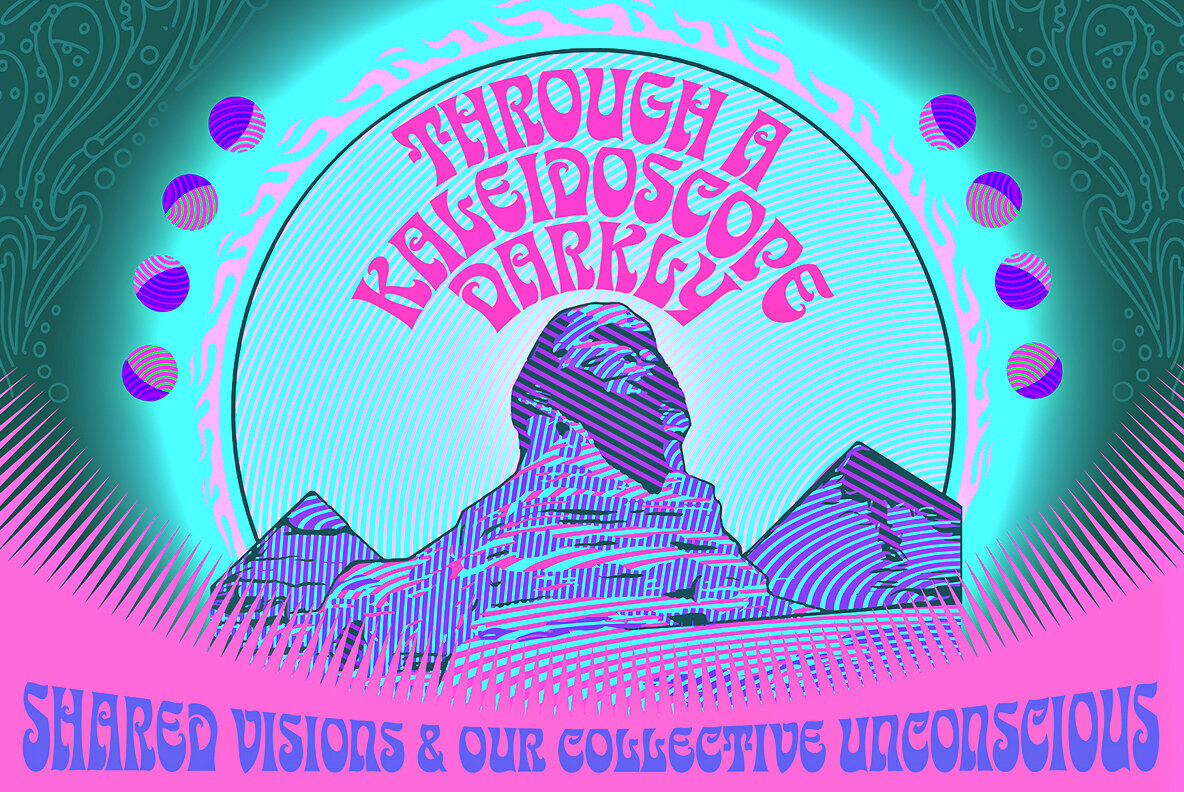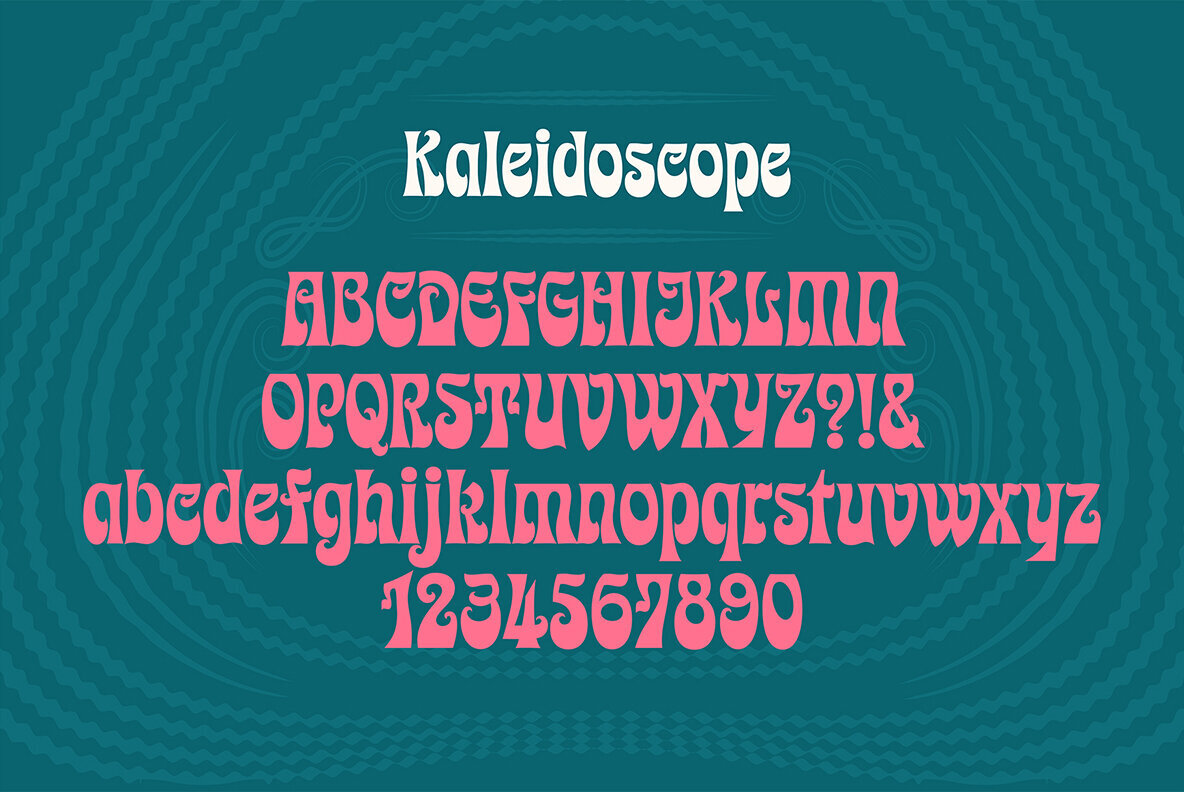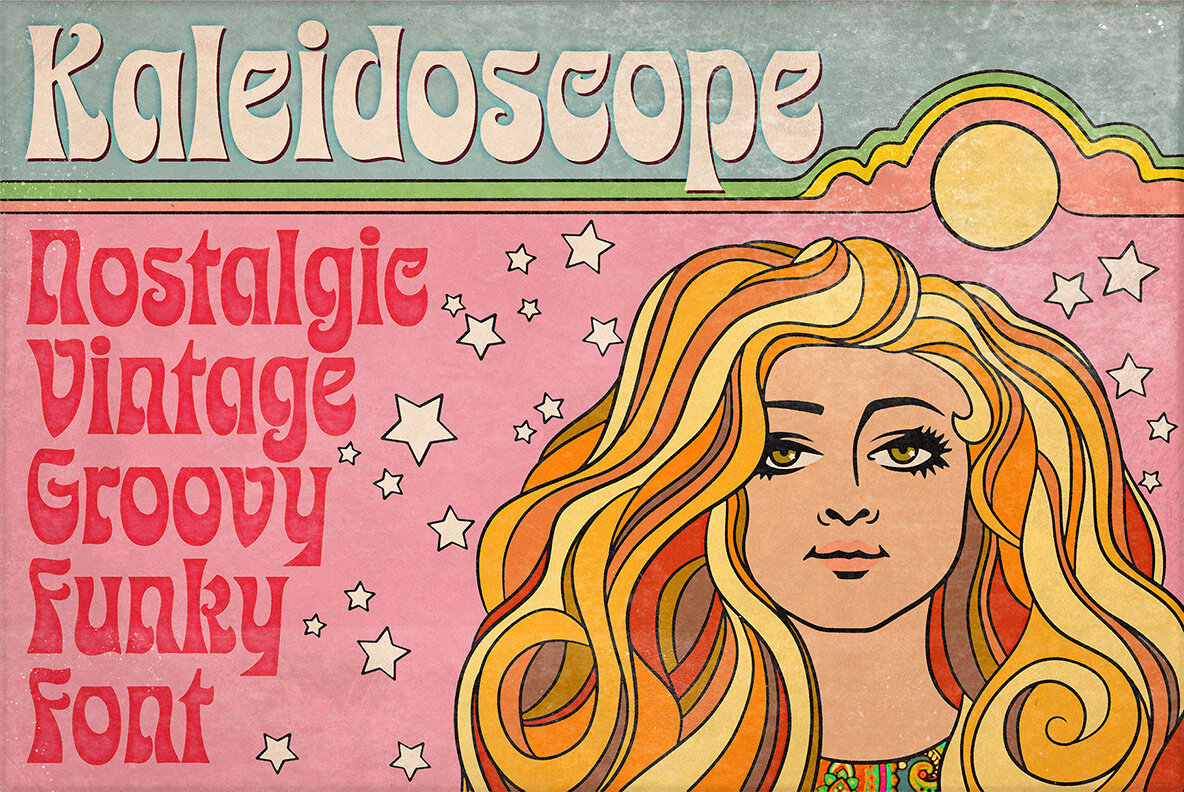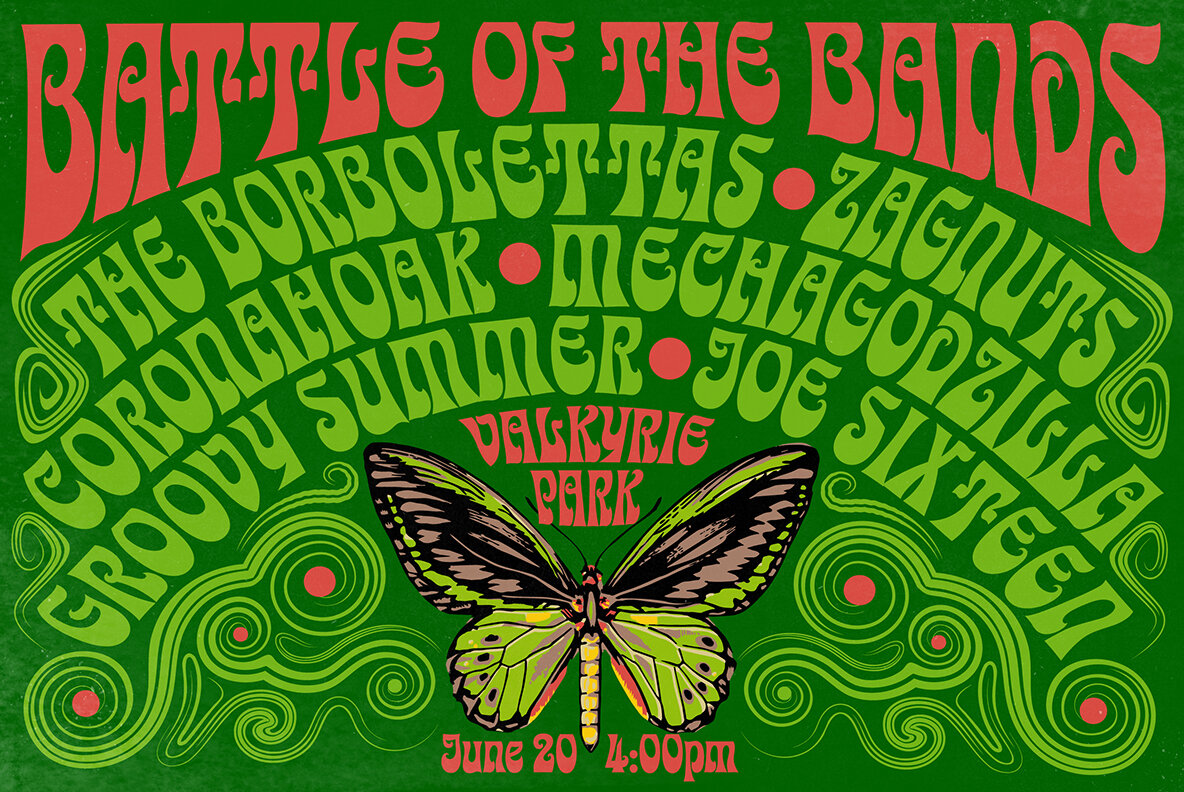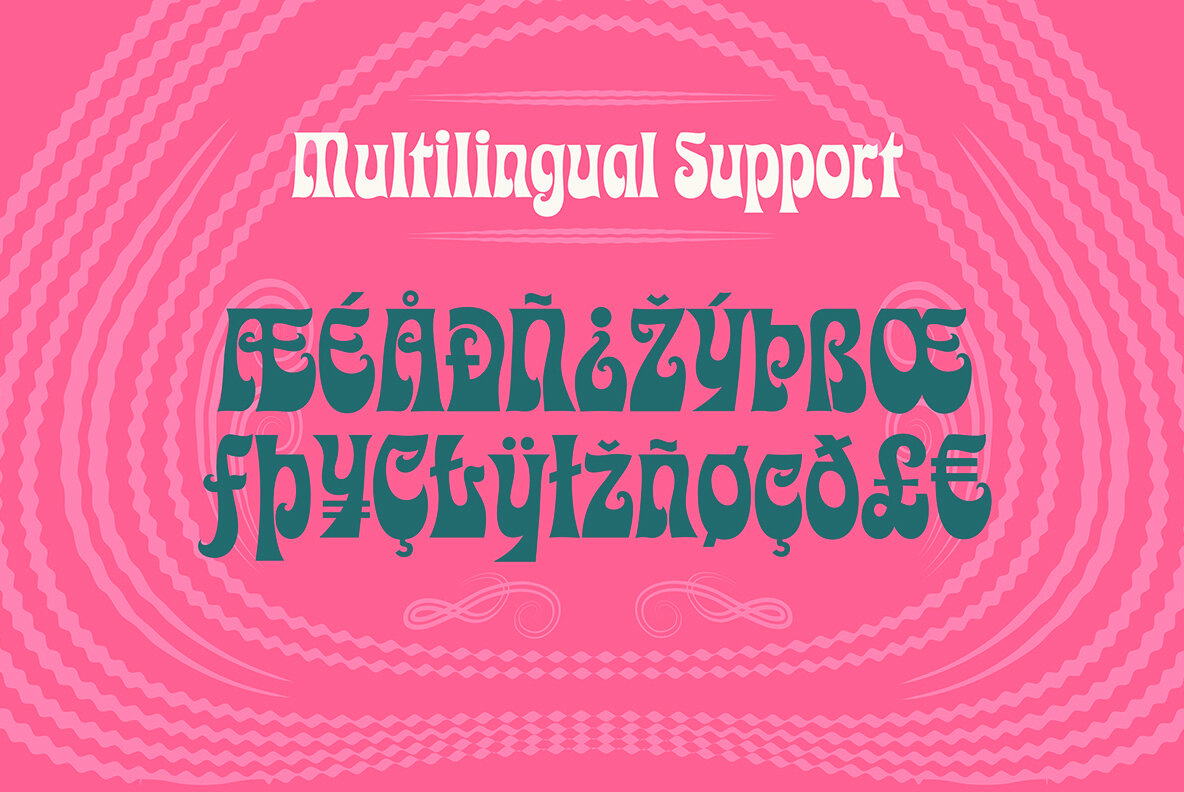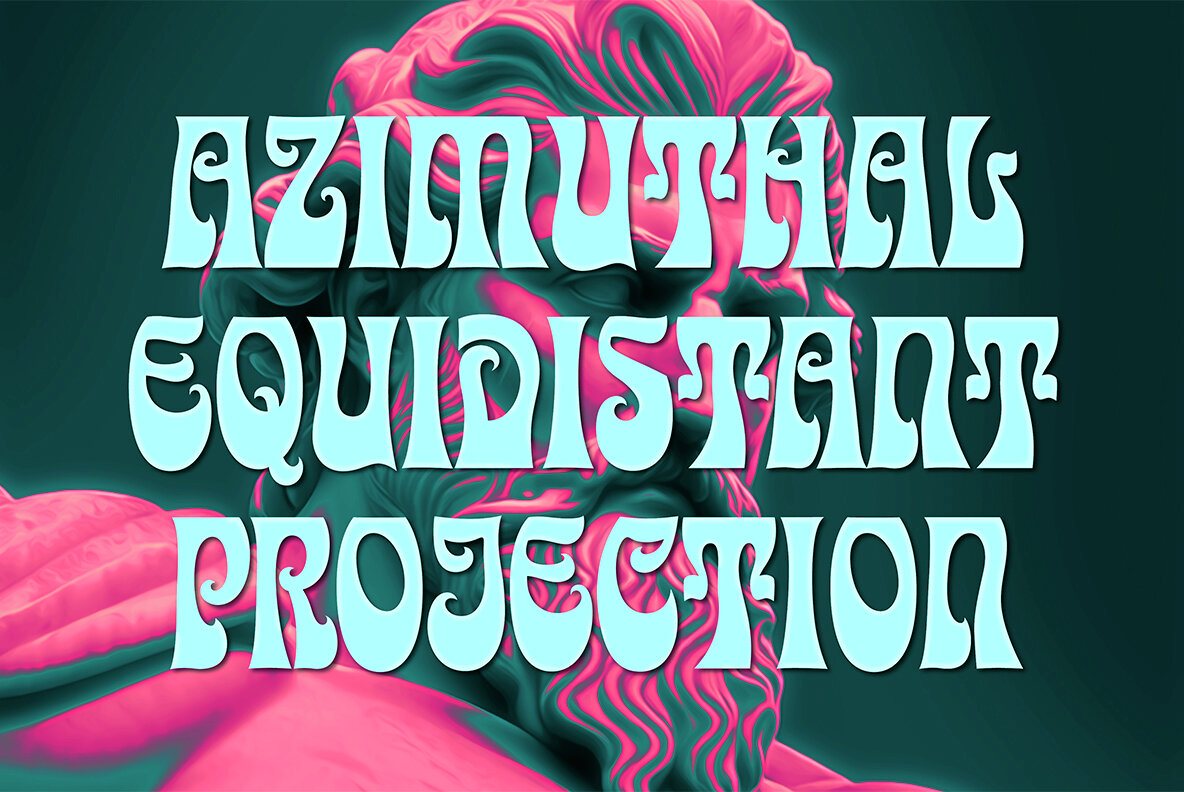
Kaleidoscope Font
Kaleidoscope Regular
Kaleidoscope is a groovy retro font with roots in the Art Nouveau movement and the psychedelic sixties. Great for trippy band posters, logos, invitations, album covers, and anything that needs a flowing funky vibe.